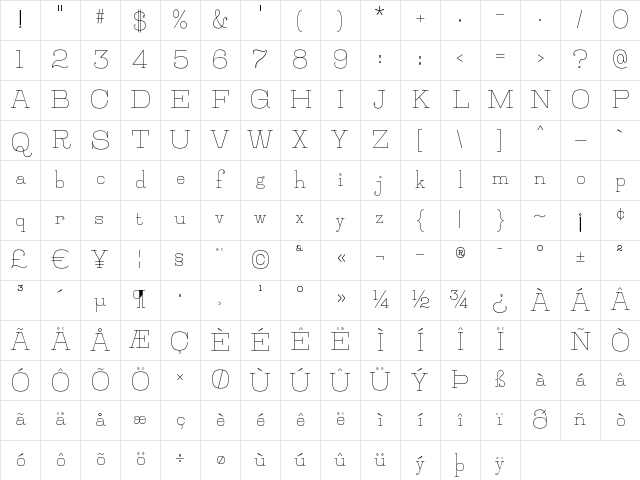
Jillsville Regular
Jillsville Family
Design Context for Jillsville
Jillsville is a composed and adaptable typeface that performs quietly and consistently across a wide range of design contexts.